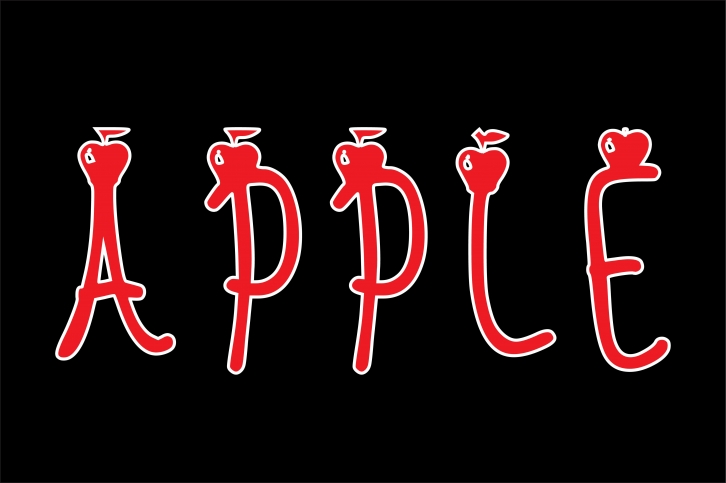
Apple is a fun and cute handwritten font. Whimsical and a little bit quirky, it is perfect for any design you wish to create. Add it to your creative projects and make them outstanding!